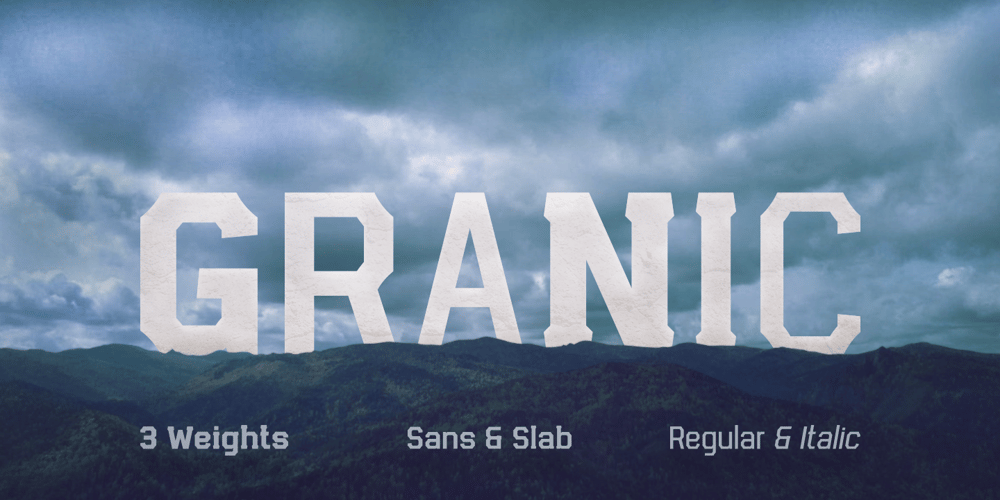
Granic Font Family was designed by Remus Gugean and published by Gror. Granic contains 12 styles and family package options. Granic is an athletic font family with 3 weights (each in regular and italic) for the sans serif and slab serif versions. The corners are reverse rounded to match the style better. The 3 weights cover most situations needs and the sans serif substitute those situations when slab serif is not suitable.